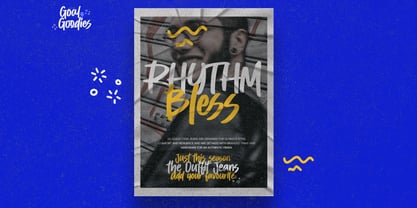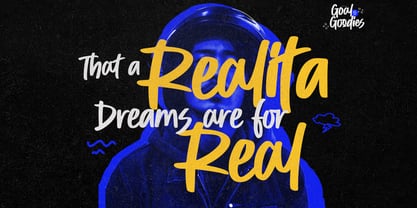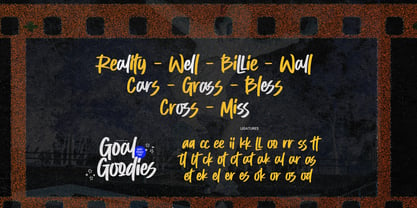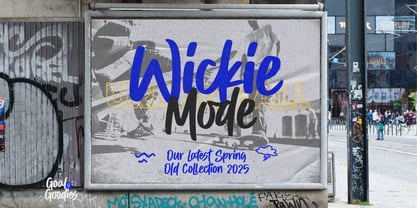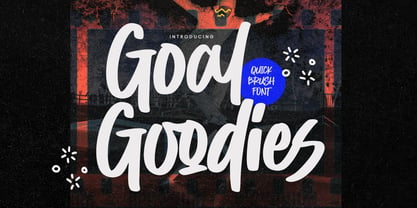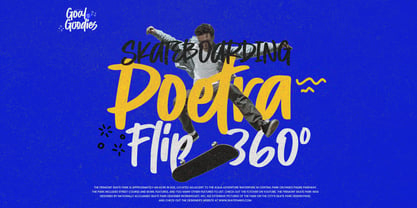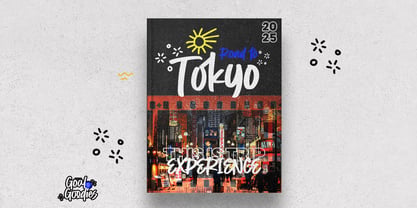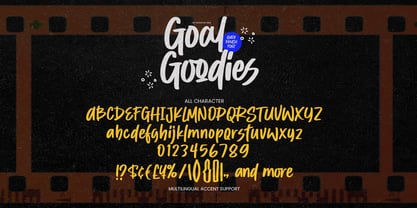
Goal Goodies
by Gassstype
The Goal Goodies Font Family was designed by Abdul Malik Wisnu and published by Gassstype. Goal Goodies contains 1 styles. More about this family
Introducing our new product, Font Goal Goodies Quick Brush Font. This textured natural style font exudes a classy and clear aesthetic. Font Goal Goodies is perfect for your next creative project, including logos, printed quotes, invitations, cards, product packaging, headers, logotypes, letterheads, posters, and more. This font is ideal for creative endeavors such as watermarks on photography and is perfect for logos and branding, advertisements, product designs, stationery, wedding designs, labels, and special events. It adds a charming, authentic, and relaxed characteristic, giving a more natural look to your text.
Designers: Abdul Malik Wisnu
Foundry: Gassstype